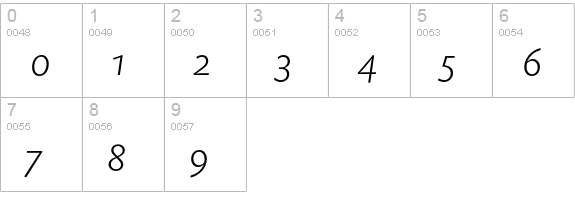
Today Sans Serif Caps Light Italic Font Details
Today Sans Serif Caps Light Italic is a refined, elegant, italic variant in the Today typeface family \xE2\x80\x94 well suited to elegant body text, refined sub-headings, and luxury branding.
Today Sans Serif Caps Light Italic is a stylish and modern font that effortlessly combines clean lines with a touch of elegance. With its sleek and refined design, this font is perfect for adding a sophisticated touch to any project. The light italic weight of Today Sans Serif Caps adds a graceful and delicate quality to the font, making it perfect for headings, titles, and branding materials. The slim and slightly slanted letterforms exude a sense of sophistication and professionalism, making it a great choice for both print and digital designs. One of the best things about Today Sans Serif Caps Light Italic is that it is available for free download at FontsMarket.com. This means that you can easily access and use this font in your projects without any restrictions. Whether you are a professional designer or a hobbyist, you can freely enjoy the beauty and versatility of this font. The clean and crisp lines of Today Sans Serif Caps Light Italic make it highly legible even at smaller sizes, ensuring that your message is conveyed with clarity and precision. The elegant curves and subtle slant add a touch of uniqueness and personality to your designs, making them stand out from the crowd. Whether you are designing a logo, creating a website, or crafting a beautiful invitation, Today Sans Serif Caps Light Italic is a versatile font that will elevate your designs to new levels of sophistication. So why wait? Head over to FontsMarket.com and download this stunning font for free today!